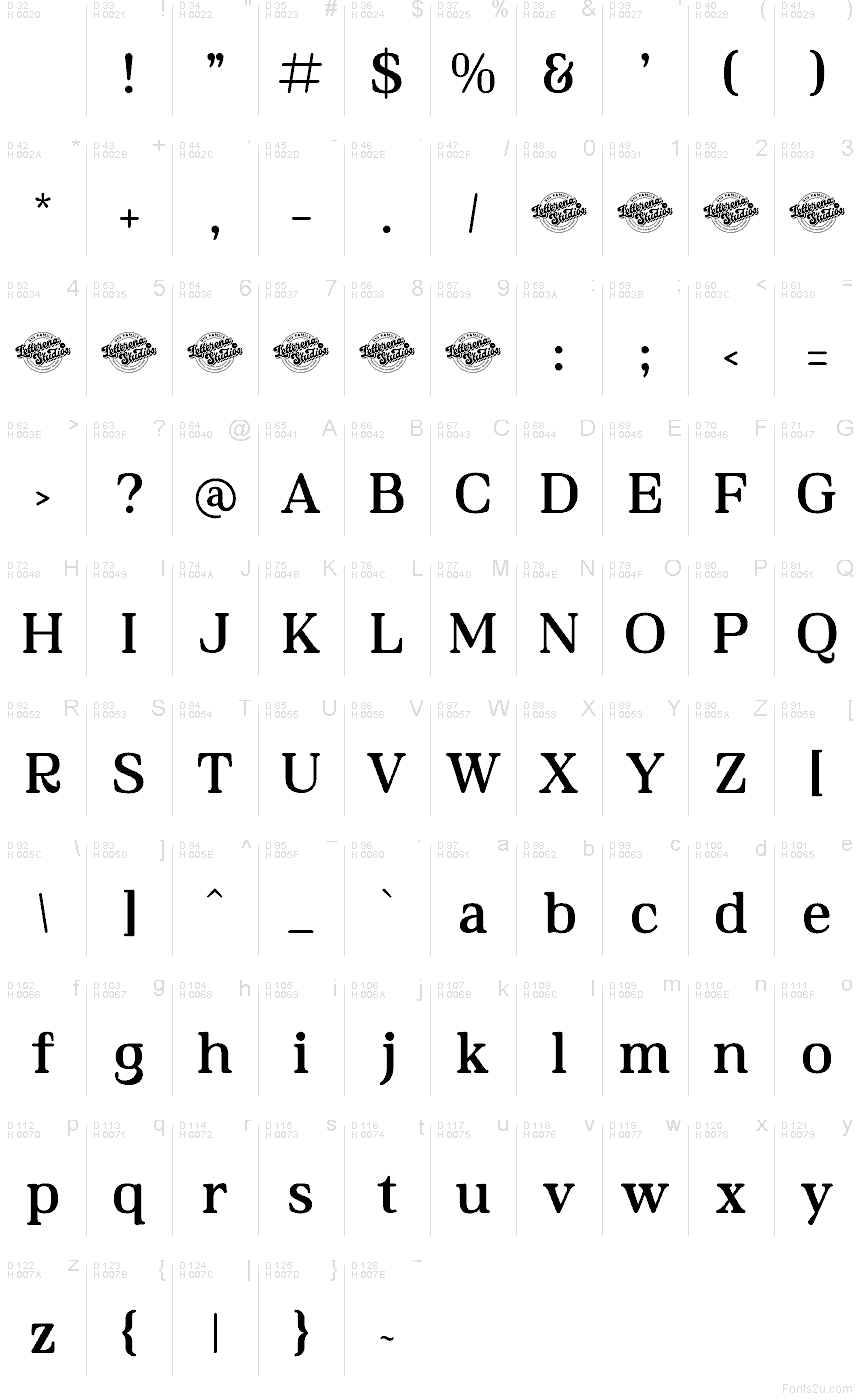
Melgike Dream DEMO VERSION
Melgike Dream font by Letterena Studios is a free serif typeface that gives you polish without the stiffness. Its letters feel thoughtfully sculpted—firm verticals, gently swelling curves, and a quiet rhythm that reads smoothly at both medium and large sizes. There’s a bookish warmth to it, like ink settling into good paper, which keeps it approachable even when the content is serious or refined.
Using Melgike Dream, you can bring this calm authority to brand identities, editorial layouts, book covers, blog graphics, packaging, and invitations. The spacing feels naturally balanced, so headlines lock up cleanly and longer lines stay comfortable to read. This free font pairs especially well with a simple geometric sans for body text or captions, letting Melgike Dream carry the voice while the sans handles the supporting details.